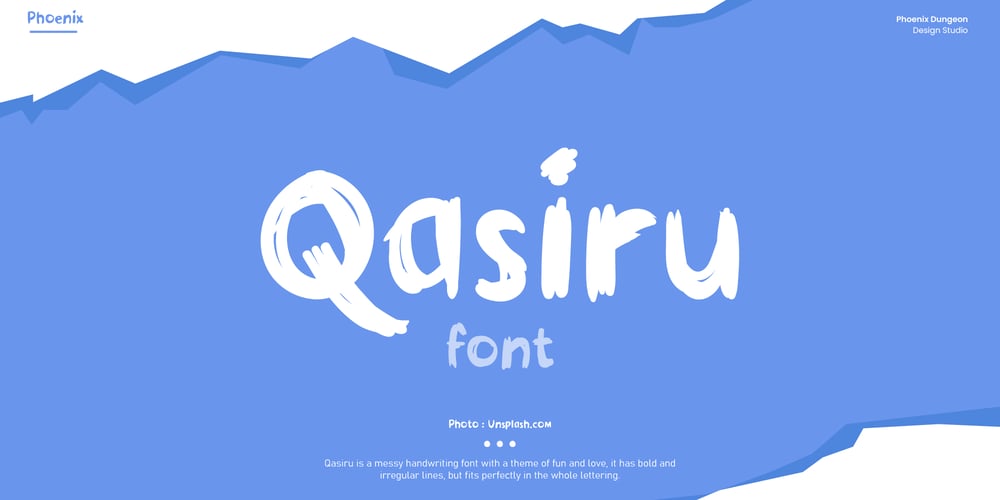
Qasiru
Qasiru font
Qasiru Font Family was designed by Alif Naufal Muzakki and published by Phoenix Group. Qasiru contains 1 styles and family package options. Qasiru is a messy handwriting font with a theme of fun and love, it has bold and irregular lines, but fits perfectly in the whole lettering.Thank you